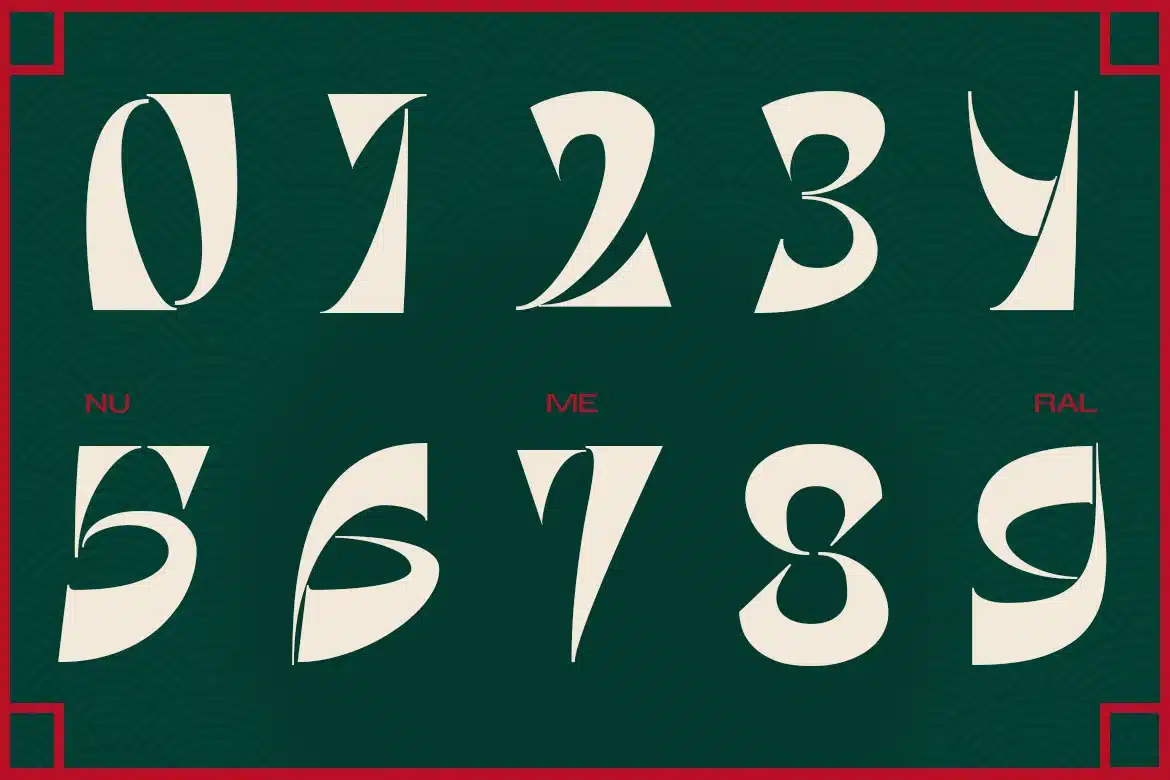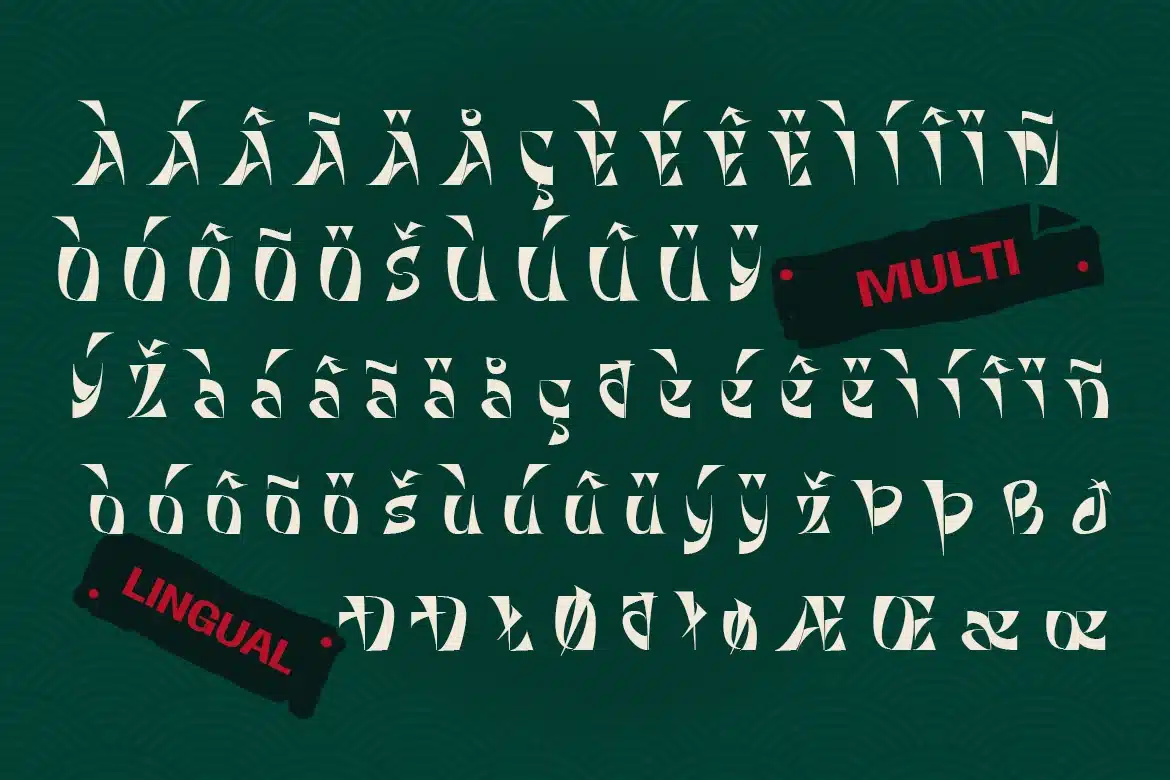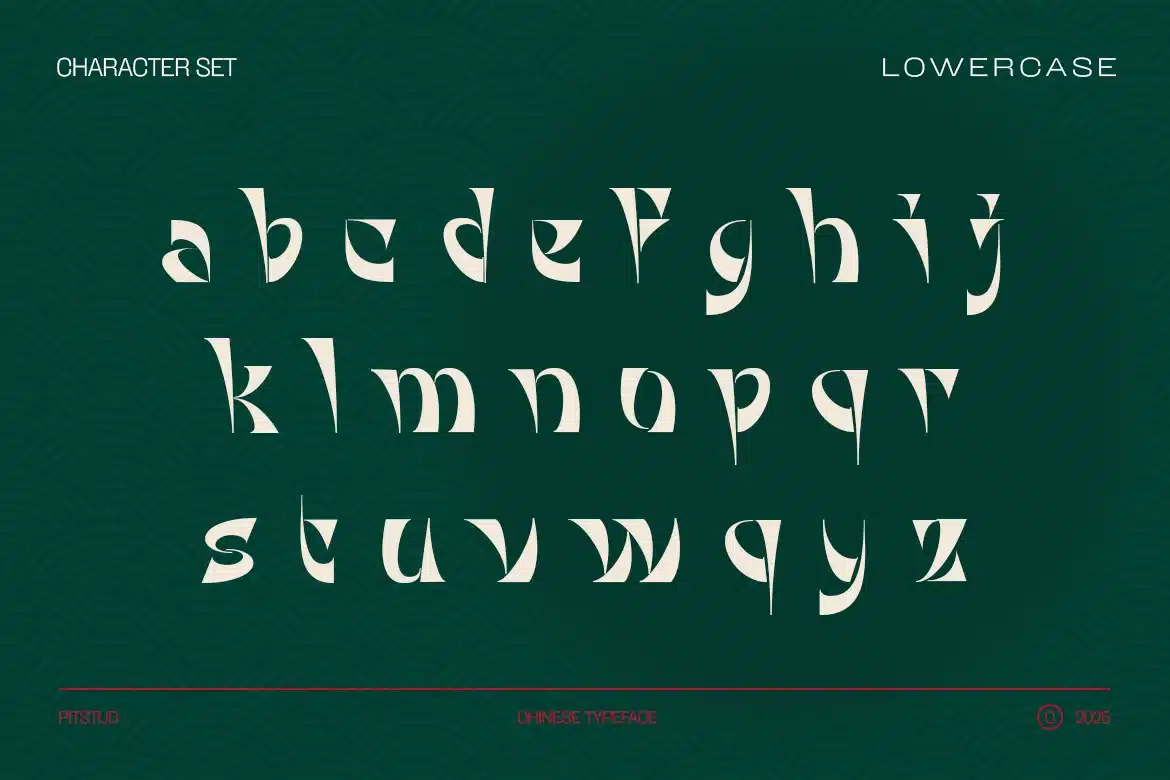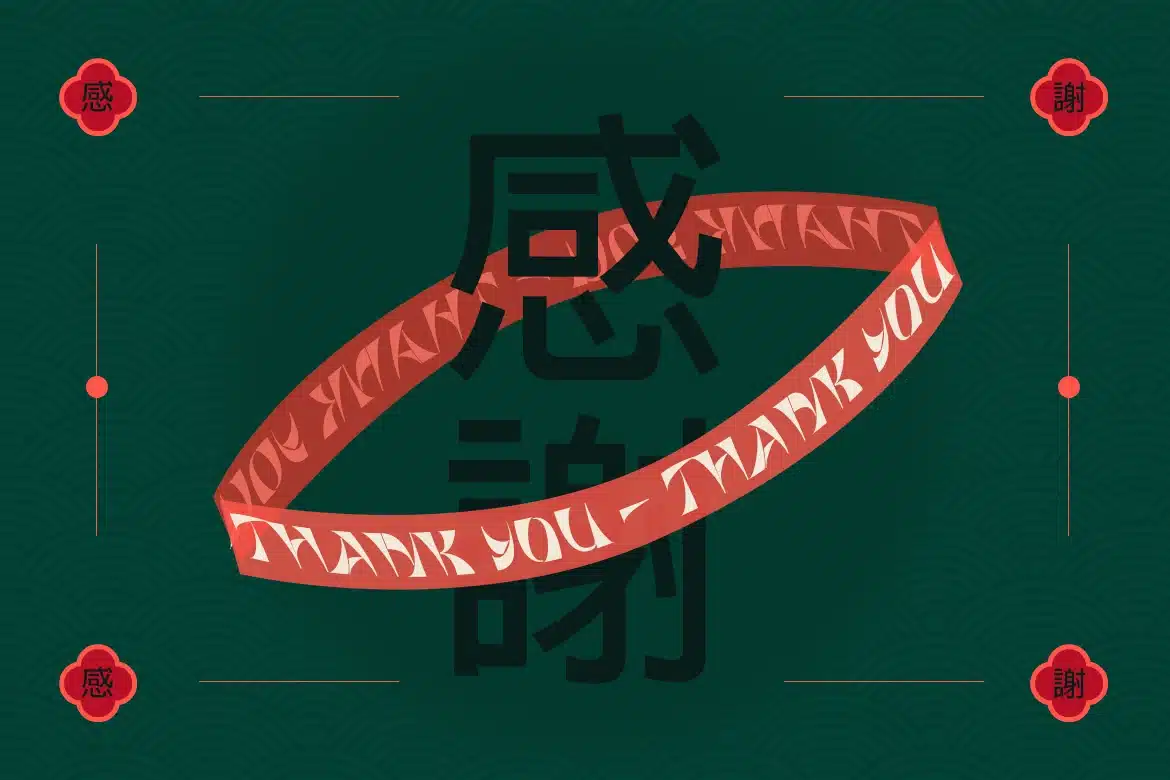
Intrapagoda – Chinese Branding Display Font
is a premium Chinese branding display font designed to bring authenticity and cultural sophistication to your branding and design projects. Crafted with modern Asian-inspired strokes, this font offers a sleek, stylish, and professional touch for logos, marketing materials, packaging, and digital applications.
Whether you’re working on a restaurant identity, festival branding, or editorial design, Intrapagoda will give your design a traditional yet contemporary edge. It’s ideal for use in logo designs, menus, product packaging, posters, and advertisements.
Font Features:
- Clear and Versatile Design: Offers easy readability with a modern style that stands out in both digital and print mediums.
- Complete Character Set: Uppercase and lowercase characters, numbers, punctuation, and symbols.
- OpenType Features: Access alternates, ligatures, and unique stylistic sets to customize your design.
- Multilingual Support: Includes support for multiple languages, including English, Spanish, French, German, Portuguese, Chinese, and Japanese.
Intrapagoda combines bold brush strokes and structured letterforms to create a striking visual impact while maintaining clarity. Whether you are designing for restaurant branding, travel promotions, or cultural events, this font adapts to your needs and enhances the visual appeal of your design.
Perfect For:
- Asian Branding: Create logos and packaging with a strong cultural identity.
- Restaurant Menus: Perfect for authentic Chinese, Japanese, or Korean restaurant branding.
- Event Posters: Stand out with striking designs for Lunar New Year and traditional festivals.
- Editorial and Publishing: A great choice for magazines, travel guides, and historical themes.
- Product Packaging: Ideal for tea brands, spice labels, and premium food packaging.